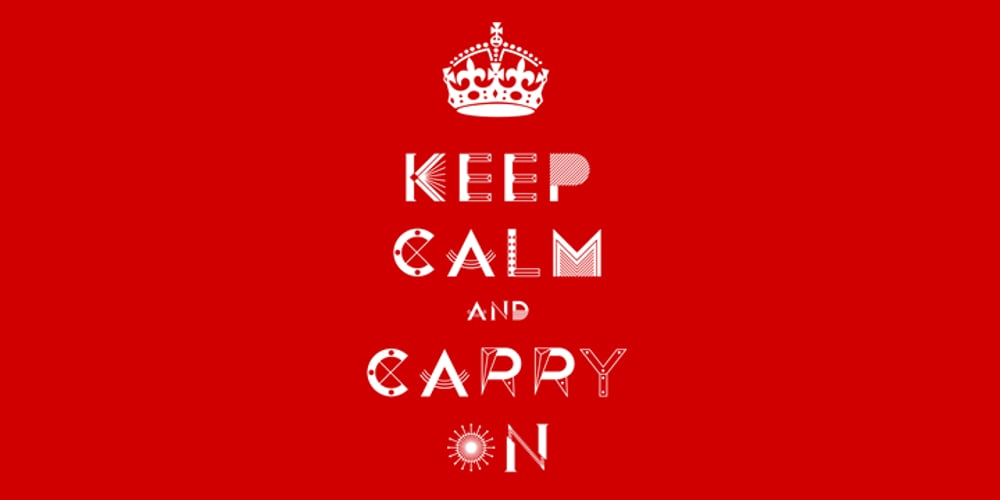
Modernissimo Font Family was designed by Giuseppe Salerno, Paco González and published by Resistenza. Modernissimo contains 1 styles and family package options. Modernissimo: where boldness meets innovation in the realm of typography.Crafted from geometric shapes and infused with random graphic illustrations, each letter in this display all caps font dances with individuality, creating a captivating visual symphony.Embracing a fusion of modern aesthetics and funky vibes, Modernissimo is tailor-made for making a statement. Whether gracing the headlines of magazines, adorning the covers of albums, or accentuating the fronts of t-shirts, this font injects an electrifying energy into any design project it touches.The uniqueness of each letter sparks a dynamic graphic vibe, breathing life into every word it forms. From sharp angles to playful curves, every element of Modernissimo serves to push the boundaries of traditional typography, inviting the viewer into a world of creative exploration.But Modernissimo isn’t just about making a splash in titles and headlines. Its versatility shines when paired with text fonts, offering a fresh and modern twist to body content. Whether as initial letters or scattered throughout paragraphs, it effortlessly infuses a sense of contemporary sophistication into any composition.In a world where standing out is essential, Modernissimo rises to the occasion, offering a bold and vibrant tool for designers, creators, and innovators alike.